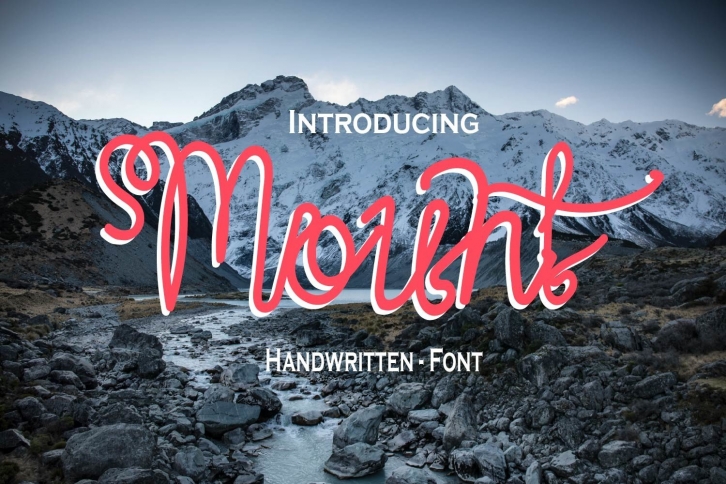
Mount is a flowing and thin script font. Featuring characters that dance along the baseline, this font will add a luxury spark to any design project that you wish to create!